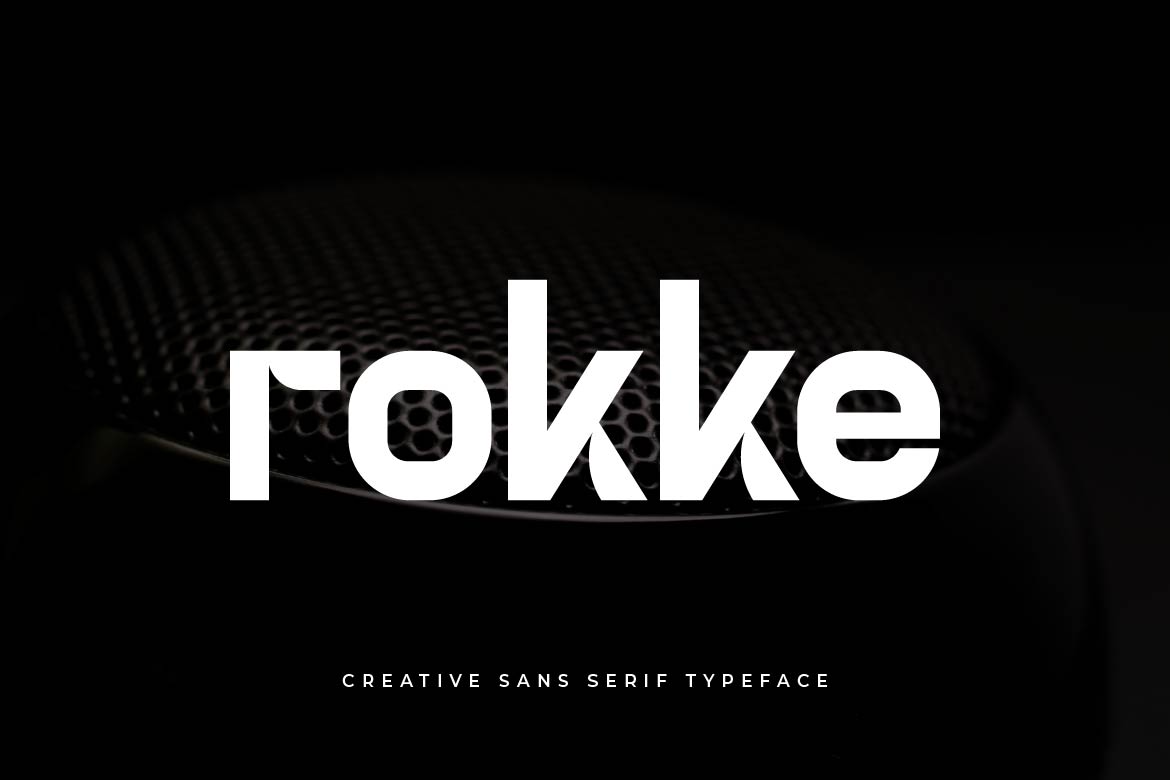
- Rokke – Edgy Sans Font
Rokke is a modern creative sans serif typeface designed with bold character and contemporary style. Featuring clean structure with distinctive details, Rokke brings a fresh and slightly edgy personality to modern design.
Perfect for branding, logos, posters, packaging, social media graphics, and creative visual identity, Rokke offers strong presence while remaining versatile and readable. Its balanced proportions and modern form allow designers to create impactful layouts that feel both professional and expressive.
Whether you’re working on creative studios, startup brands, or modern campaigns, Rokke delivers a confident typographic voice that stands out.
Rokke is not just a font — it’s a bold creative tool for modern design.